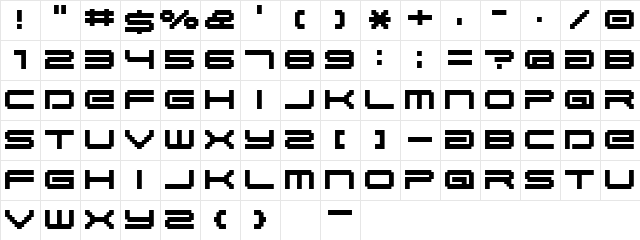
BM gaia A10
Design Context for BM gaia Typeface
BM gaia is a composed and adaptable typeface that performs quietly and consistently across a wide range of design contexts.